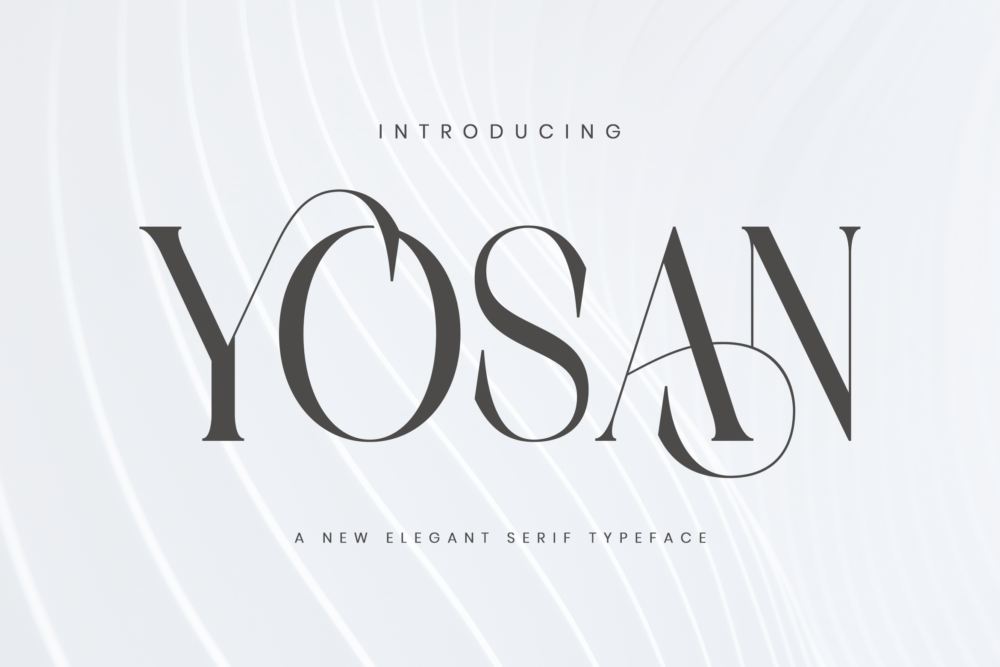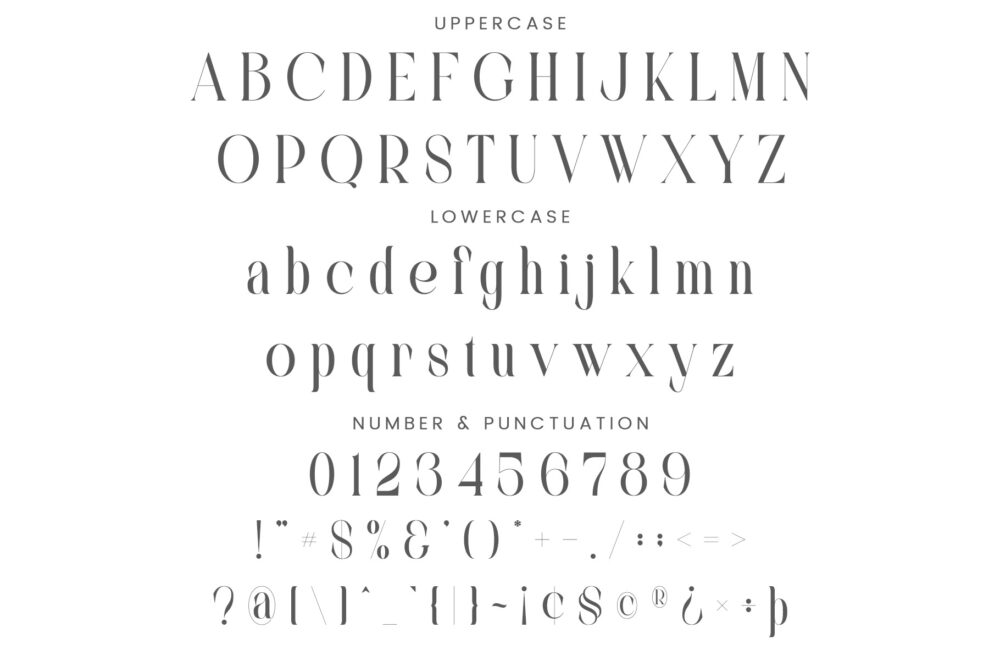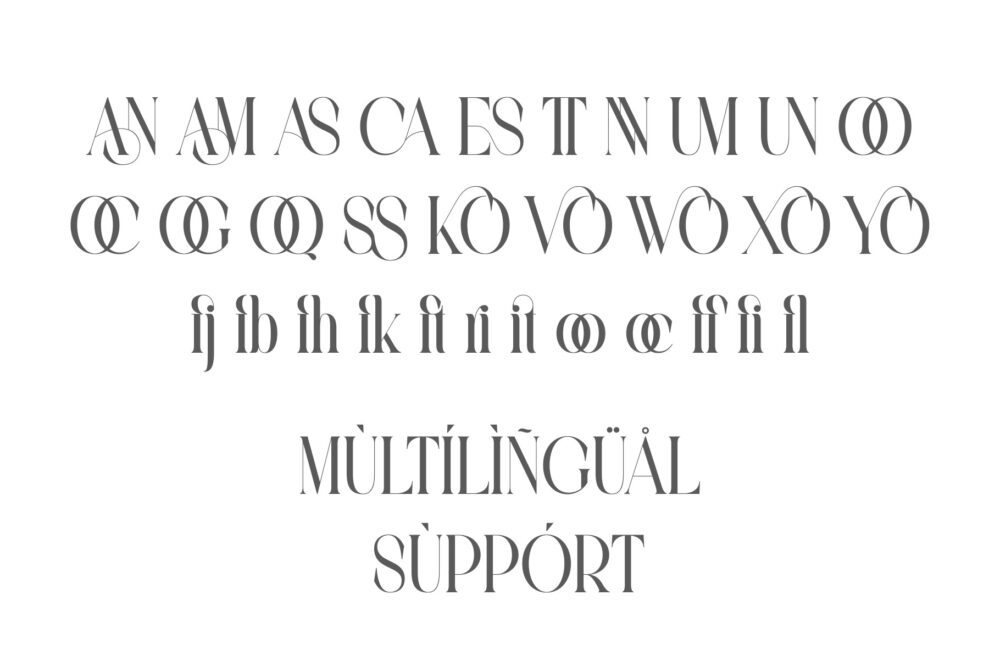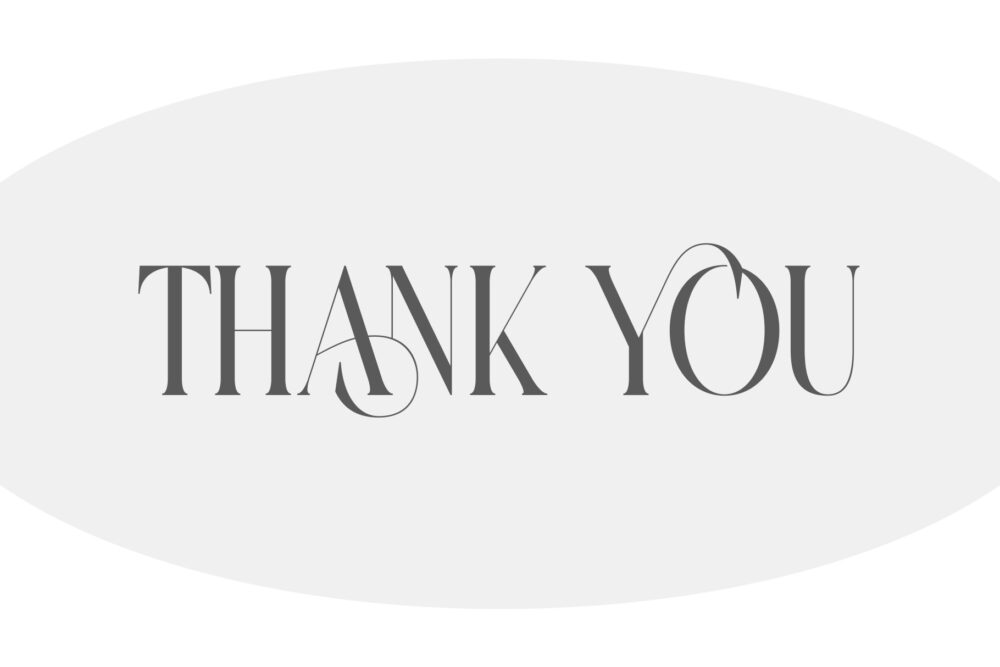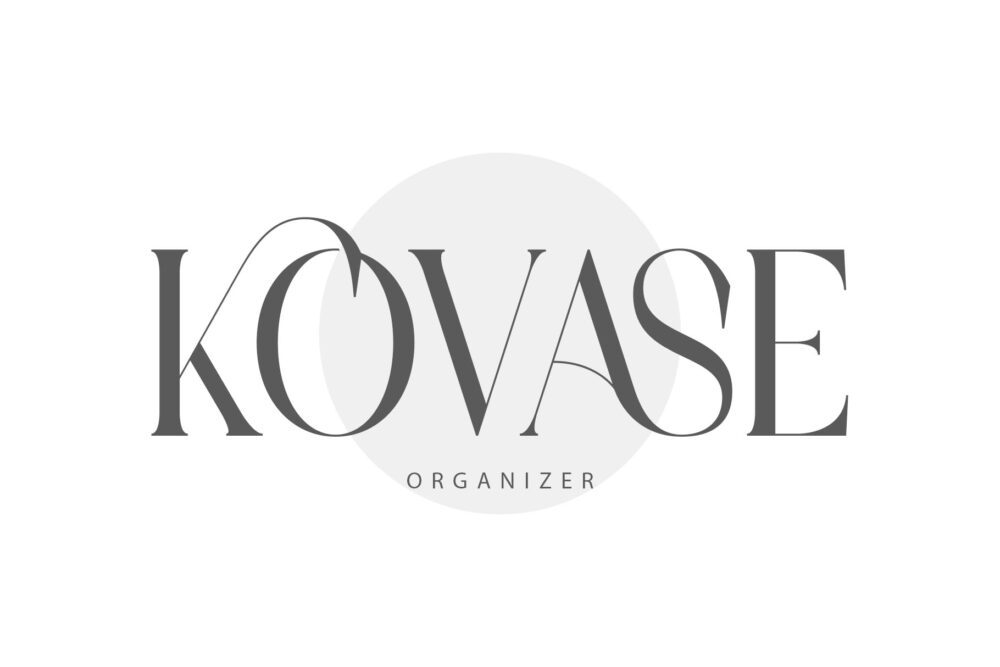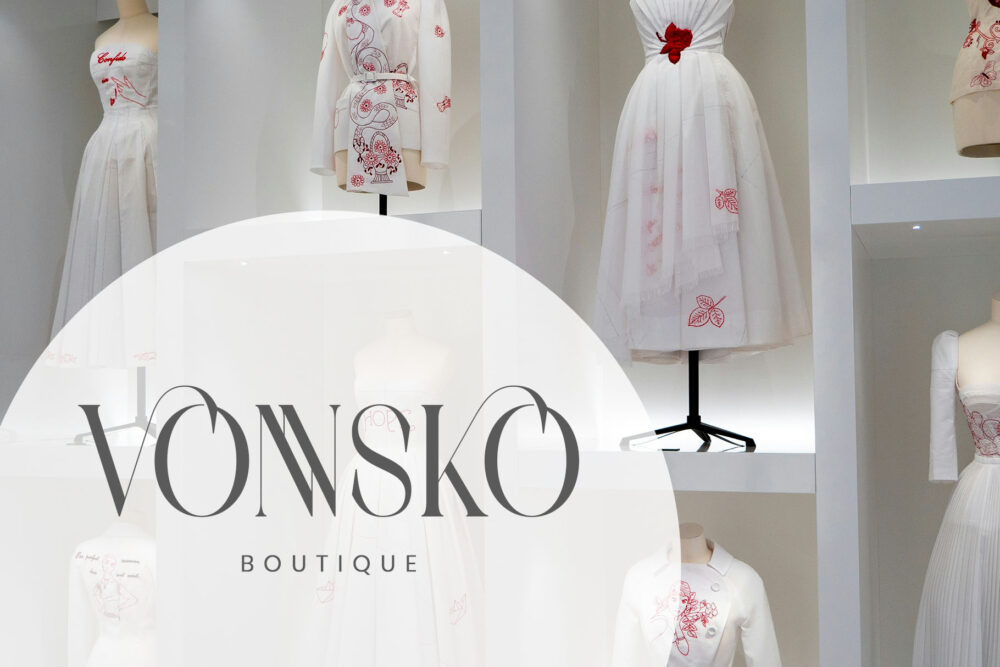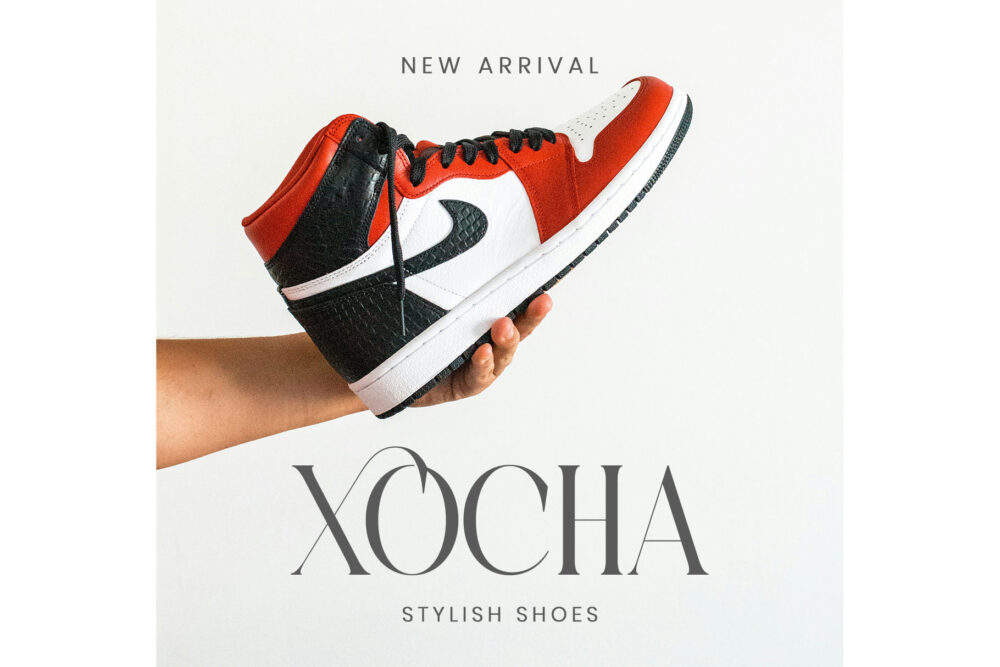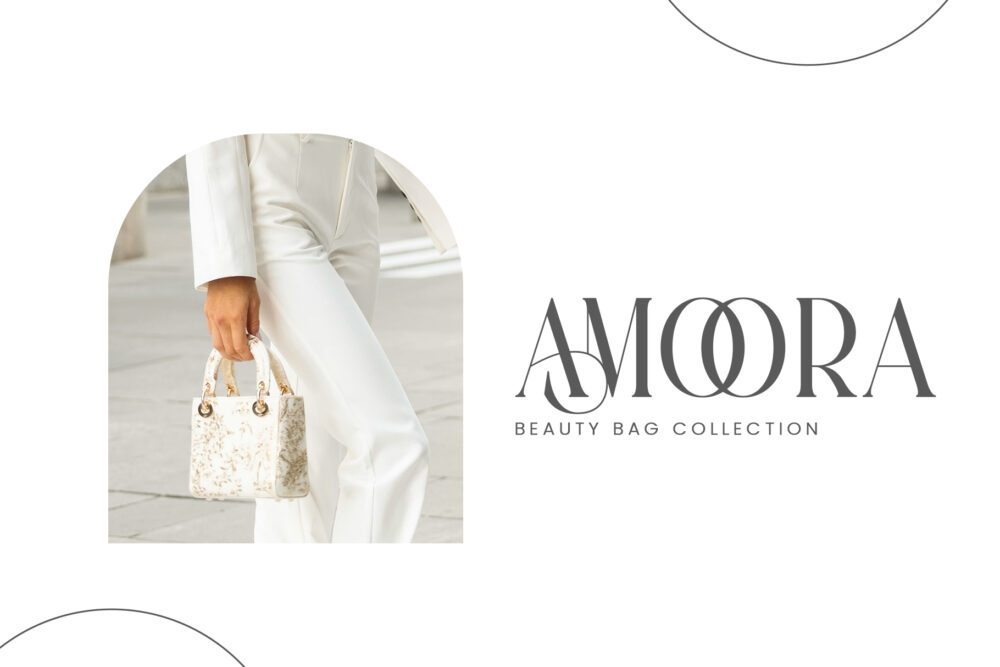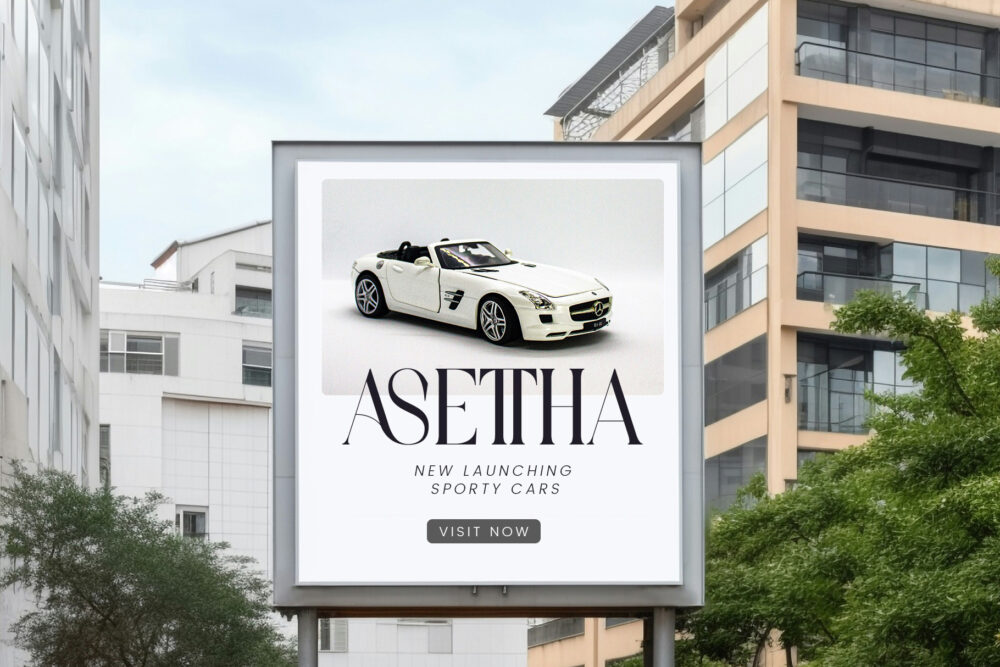
Yosan
Yosan Stylish Ligature Typeface, inspired by the famous minimalist logo perfect for the purposes of designing templates, brochures, videos, advertising branding, logos and more.
Yosan – Elegant Serif Font